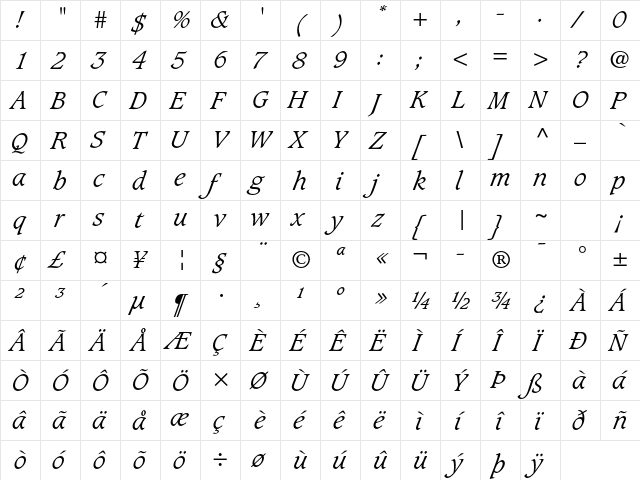
Caxton Std Light Italic Font Preview
| Designer | Leslie Usherwood |
Design Context for Caxton Std Typeface
Caxton Std takes a measured approach to typography — its balanced proportions and neutral character make it a reliable workhorse for both digital and print work. Its italic angle brings a sense of urgency and motion to the letterforms. Its slender proportions lend an understated elegance to any composition.
Pro Tip: Try Caxton Std for annotation and caption copy alongside an upright companion — the contrast in angle creates a dynamic but ordered typographic system.